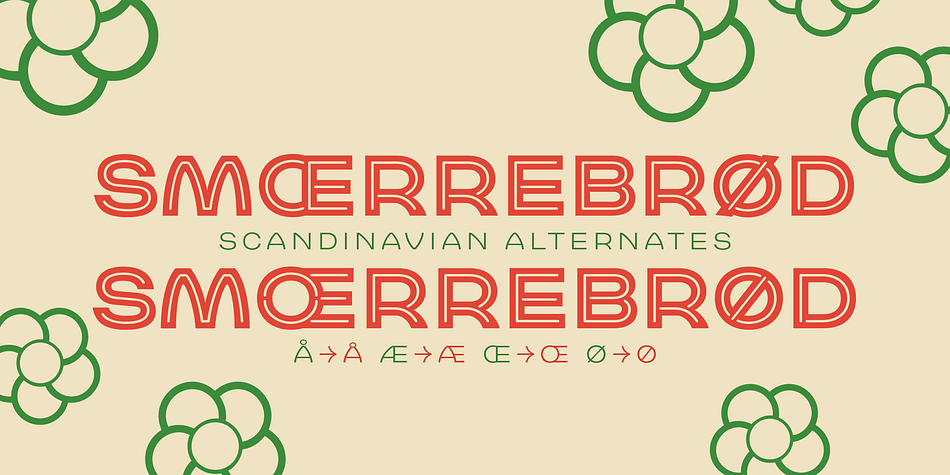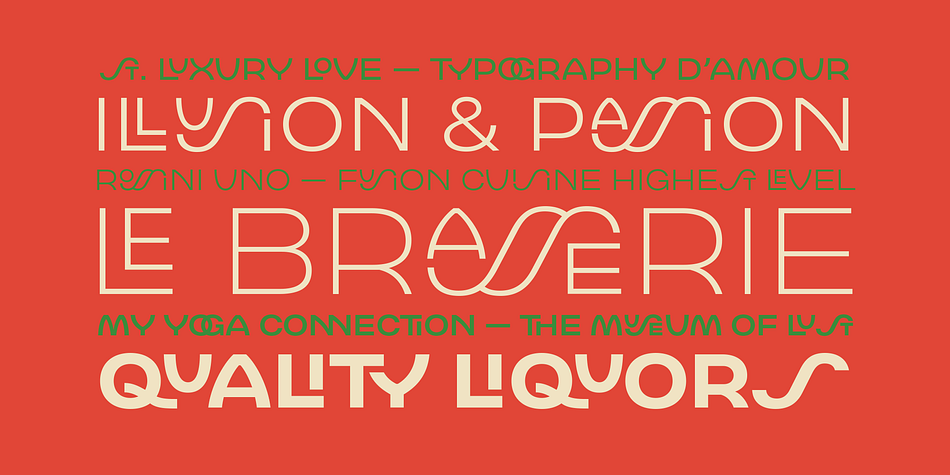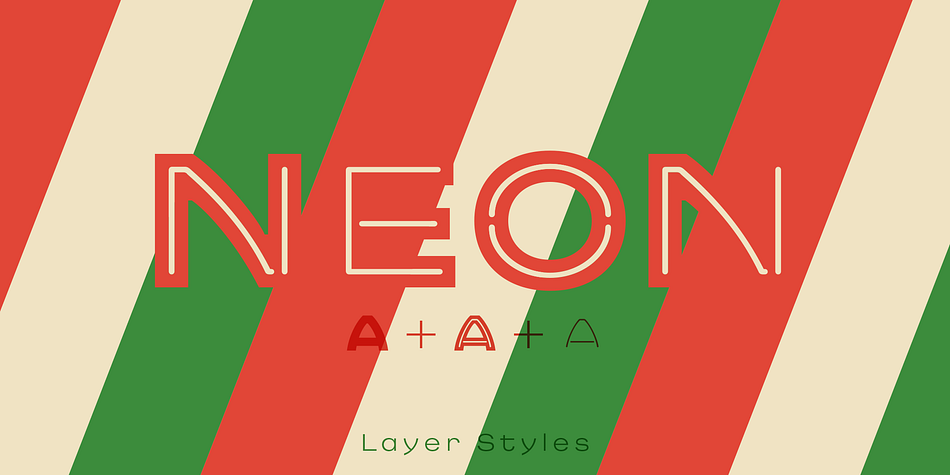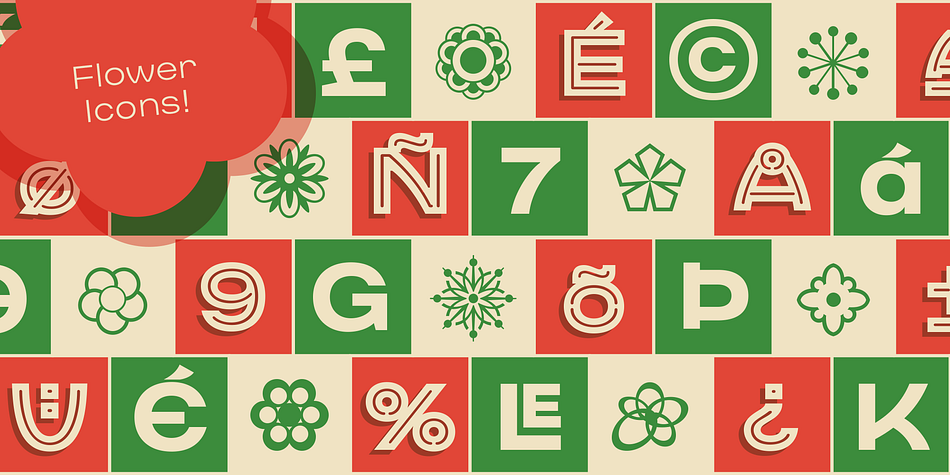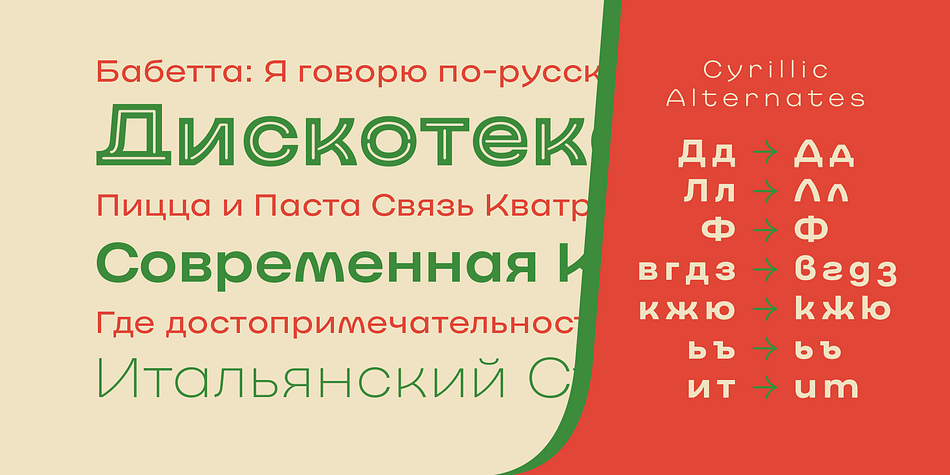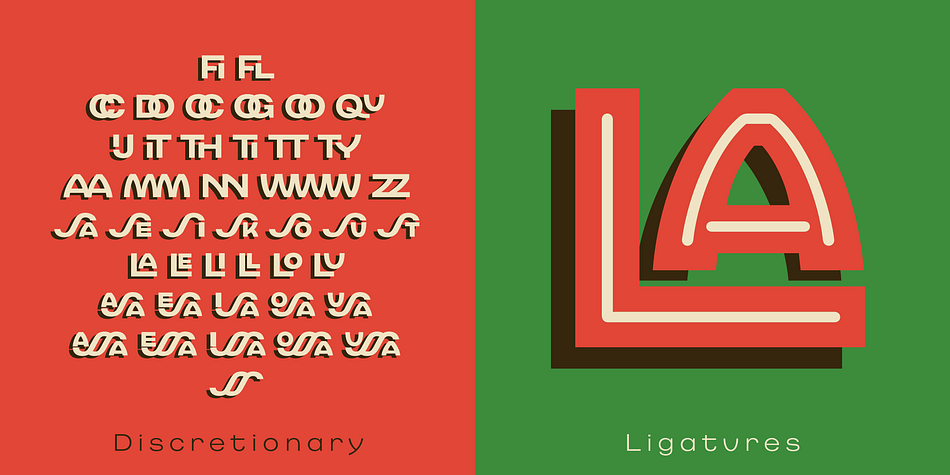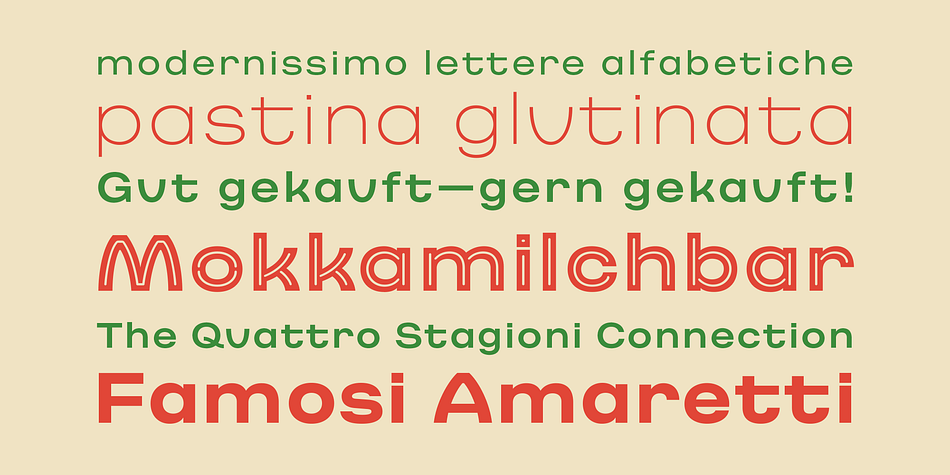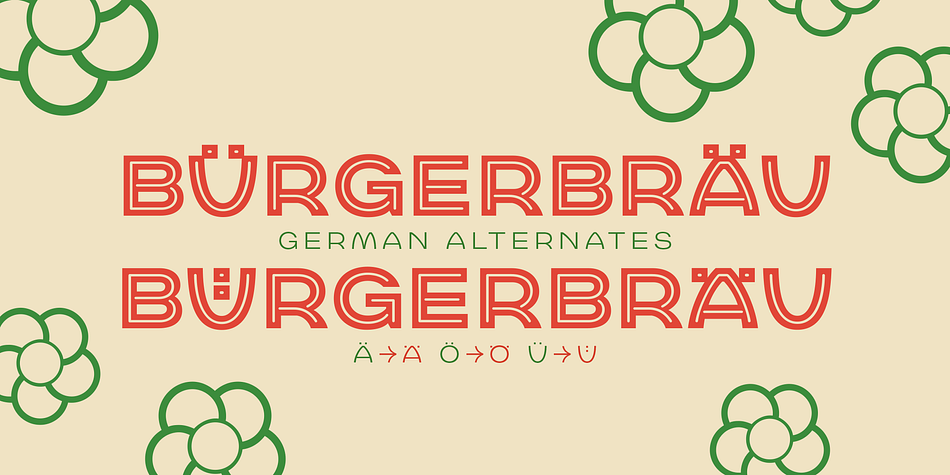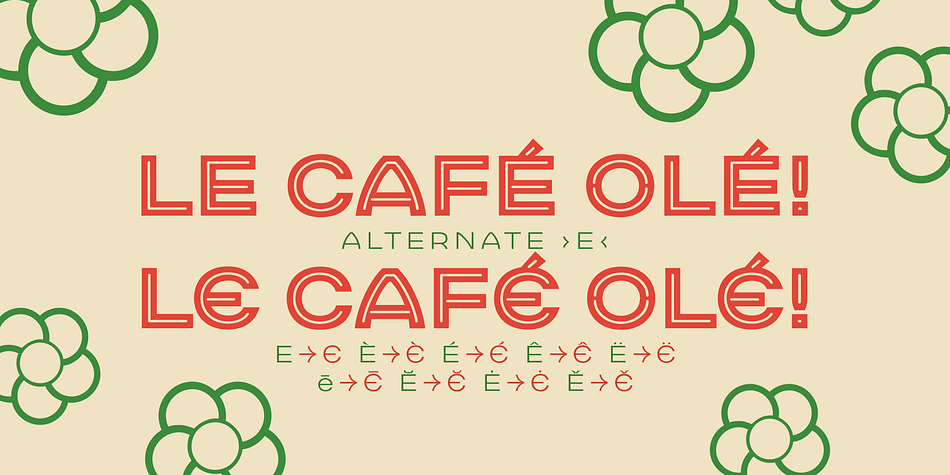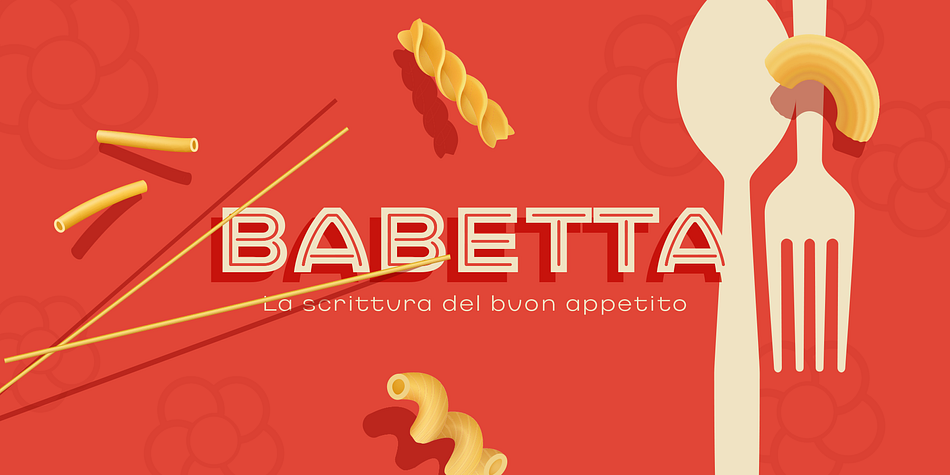
Babetta is a display sans font family. This typeface has eight styles and was published by Viktor Nübel.
Babetta is a display typeface that comes with some decorative typographical features. Alongside a set of arrows and flower icons, it also includes an alternative ›E‹, some special diacritic marks, a wavy ›S‹ and a series of ligatures. It features 5 weights, a special ›Neon‹ version and supports a wide range of Latin languages. This typographical tool box provides a large and playful variety of options for headlines and logotypes.
The initial inspiration for Babetta was an illuminated vintage shop sign—that of a famous bookstore in Berlin called Karl-Marx-Buchhandlung that dates back to the days of East Germany. During the course of the design process, this slightly shabby historical original was kissed by an Italian Art Deco beauty and has blossomed into a new typeface with its own special charm. The aim was not to preserve the original lettering, but to use it as a starting point for typographical exploration.